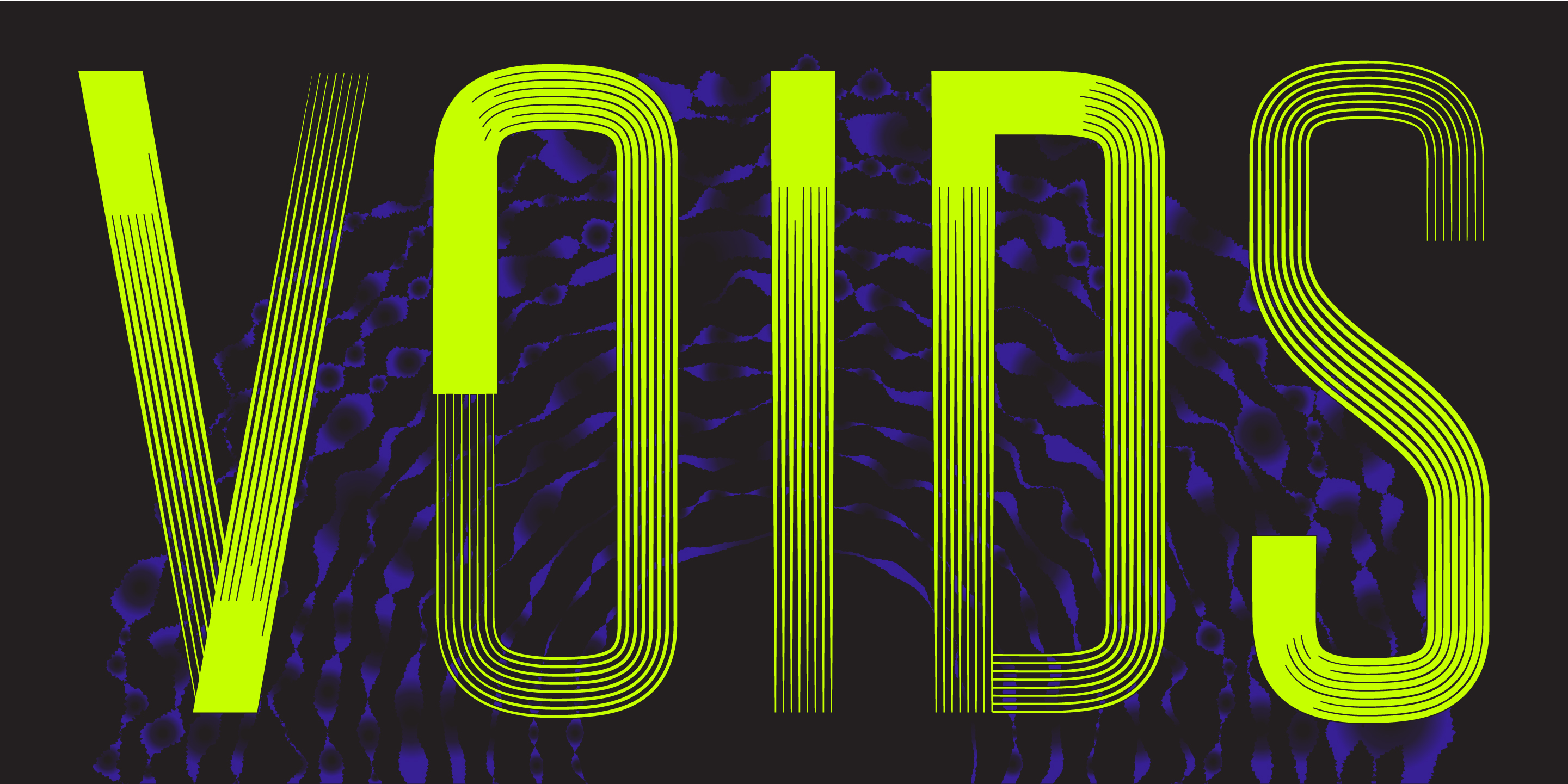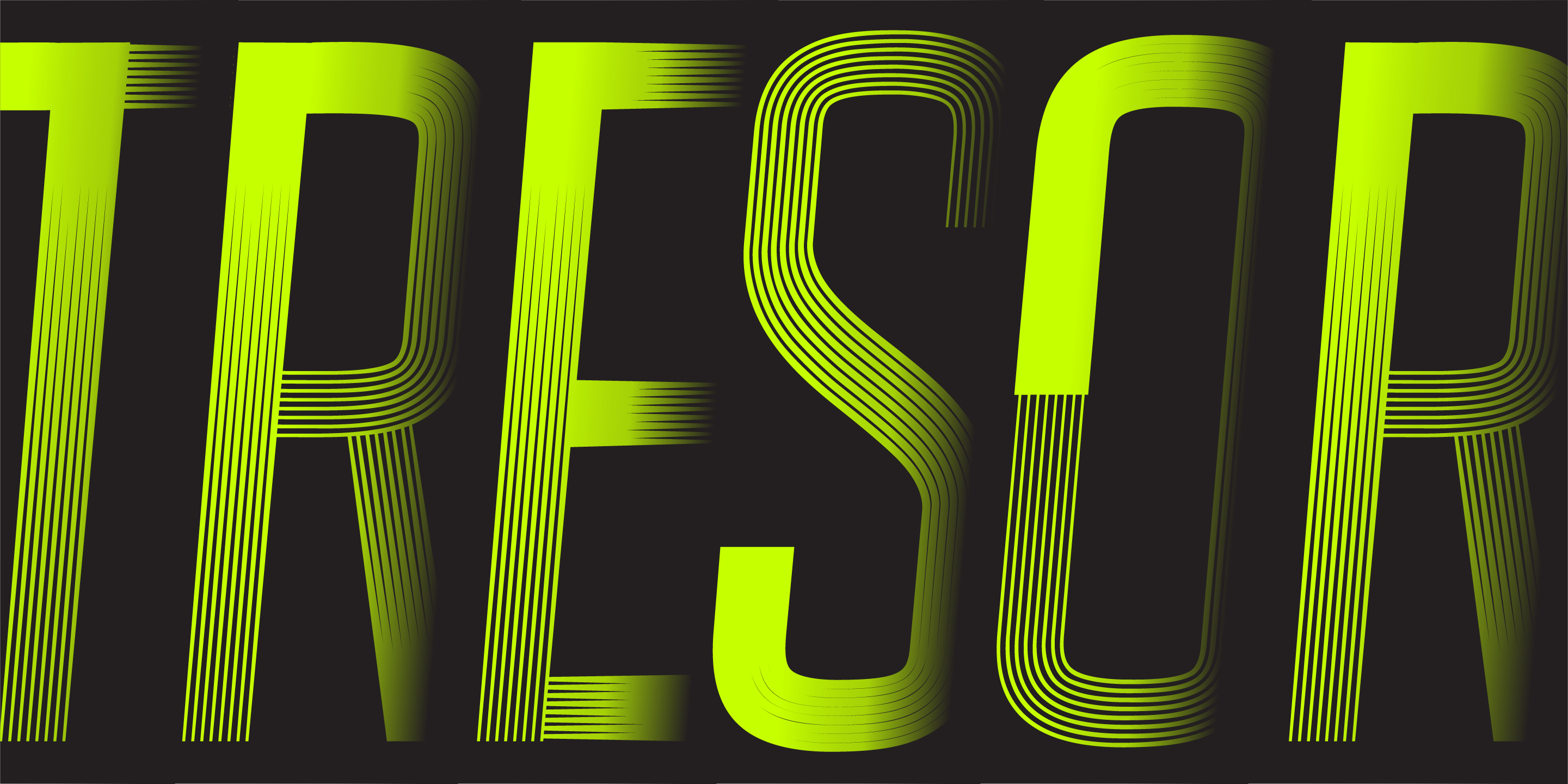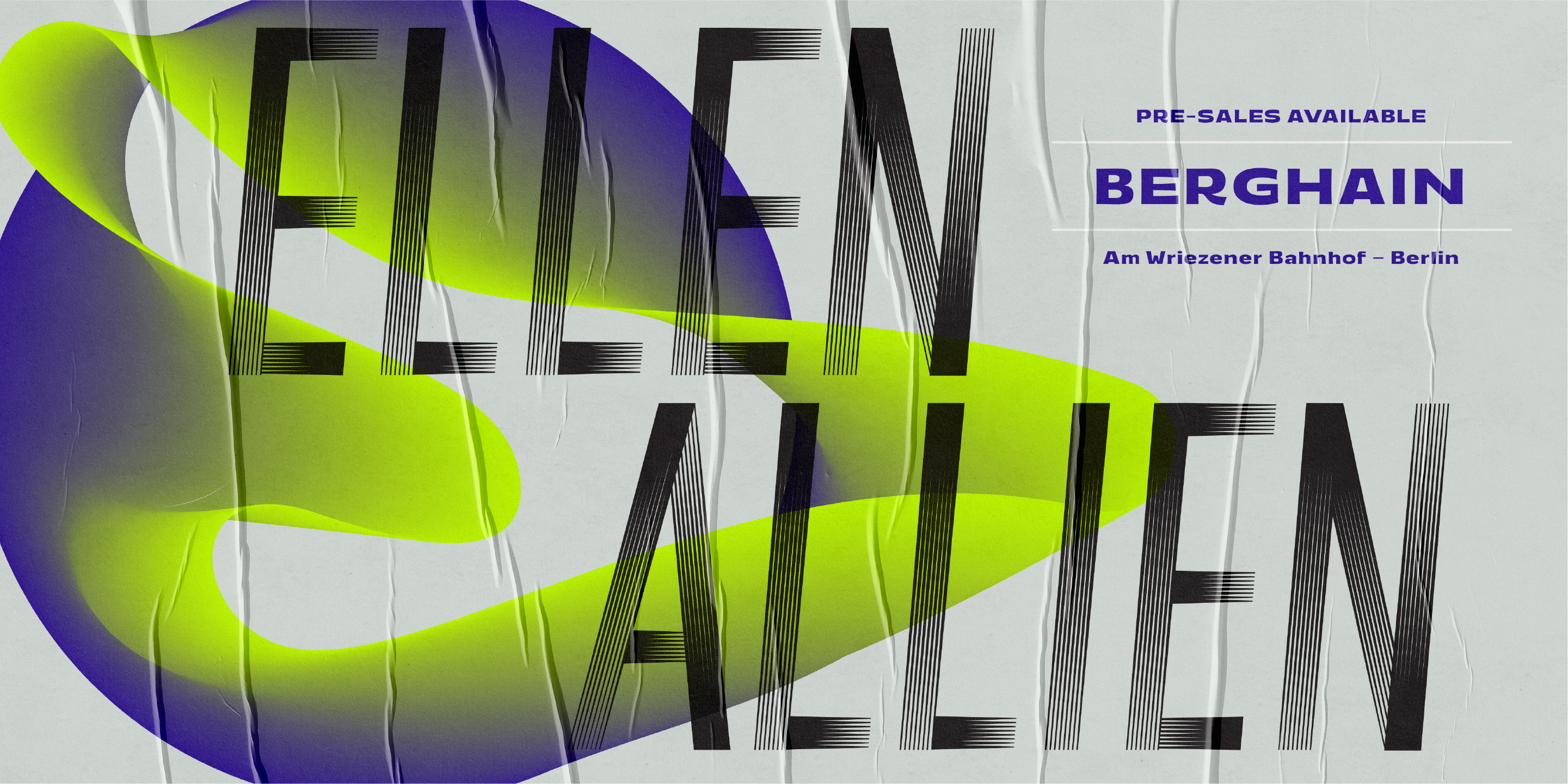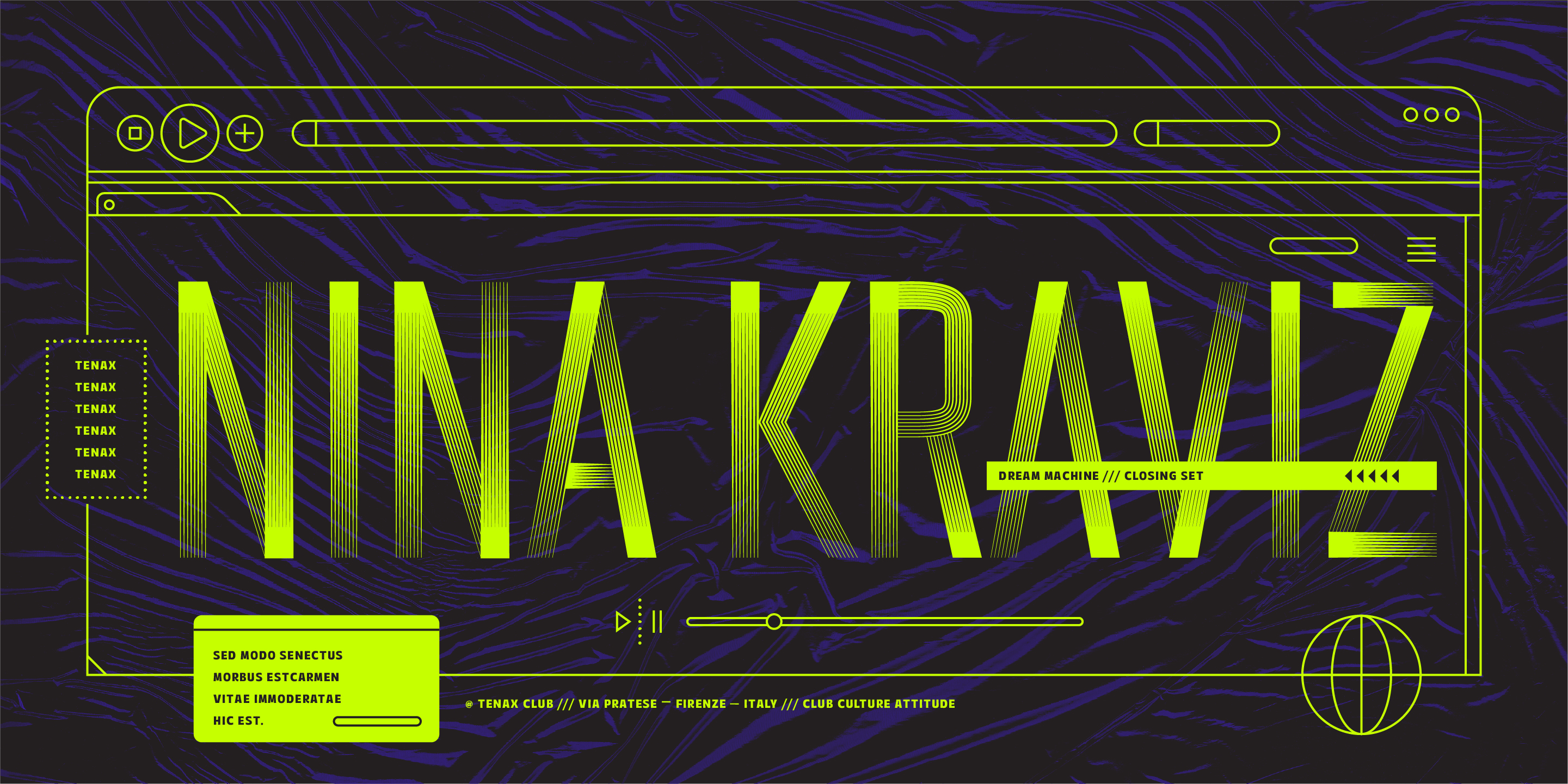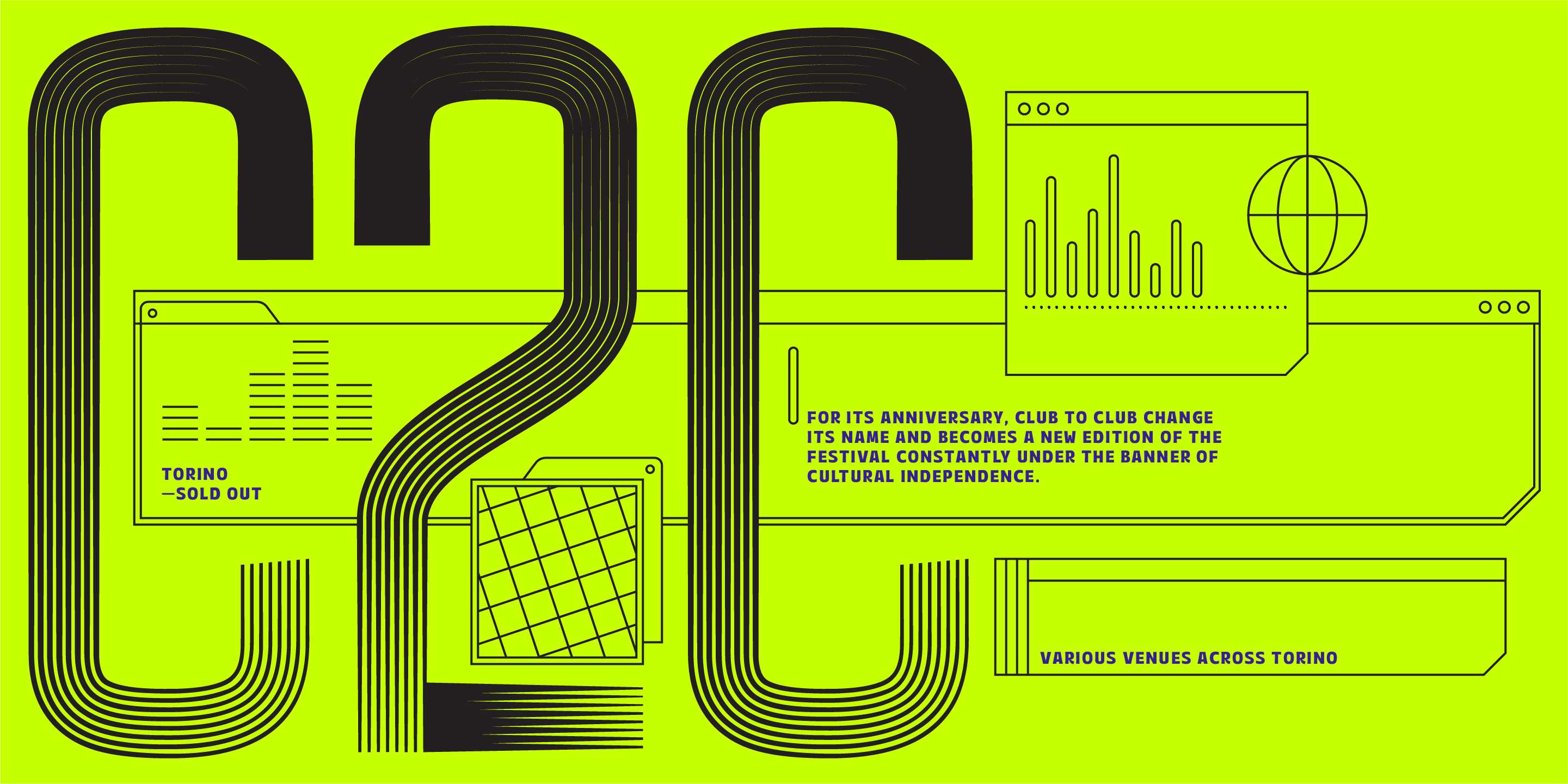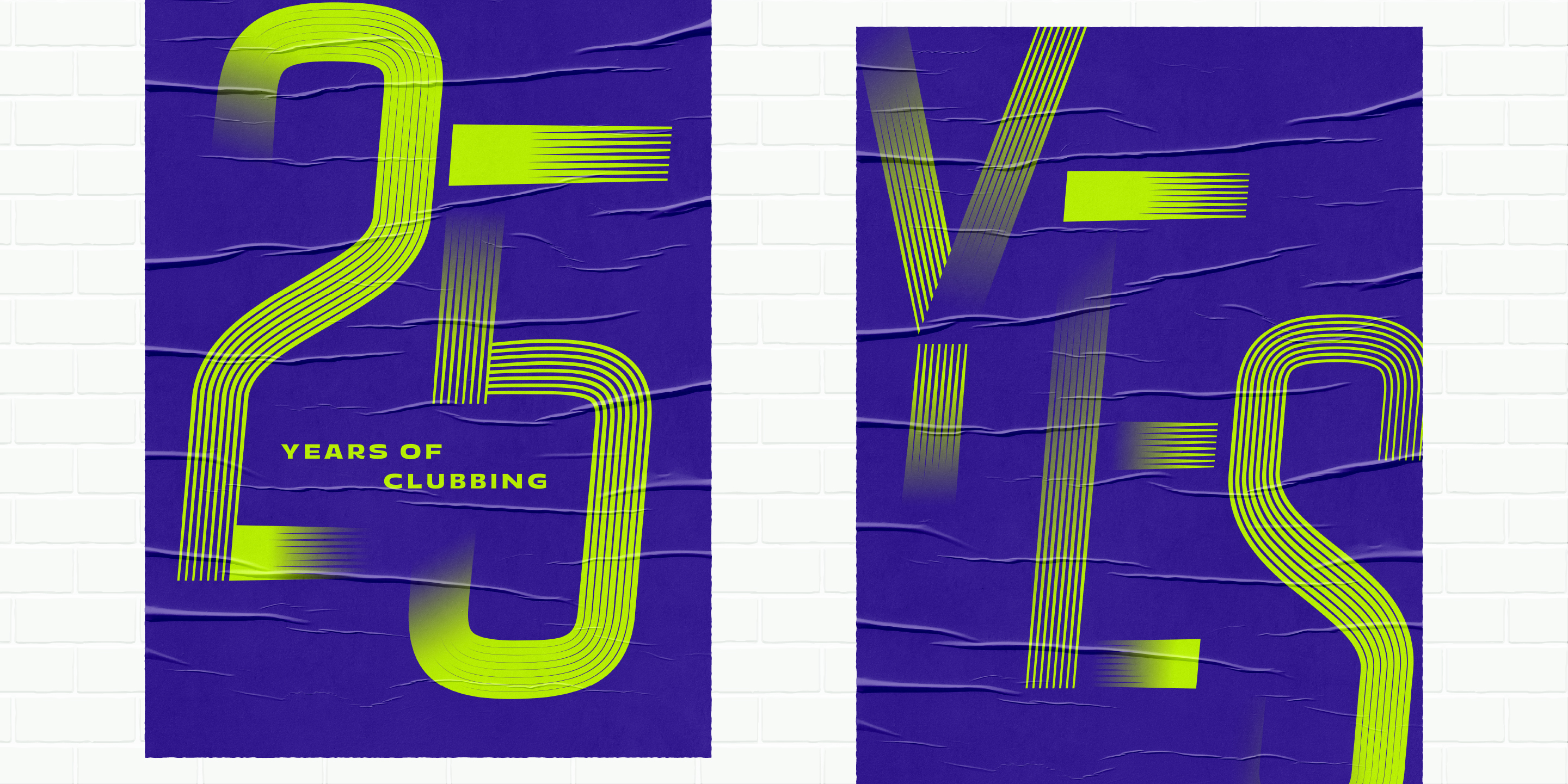
DreamTeam
Multiline Font
DreamTeam
Designed by Resistenza Type FoundryThis fit font’s long limbs, nimble movement and shifting weight make the multiline-display ( inspired by our bestseller Afrobeat ) perfect to grab attention on signage, print advertising and editorial applications like book covers.
DreamTeam’s distinctive forms also make it ideal for branding applications and obviously with its directional movement and the suggested speed DreamTeam’s 4 styles would be DreamSolutions on athleisure apparel and clothing lines. Try on Adobe Fonts